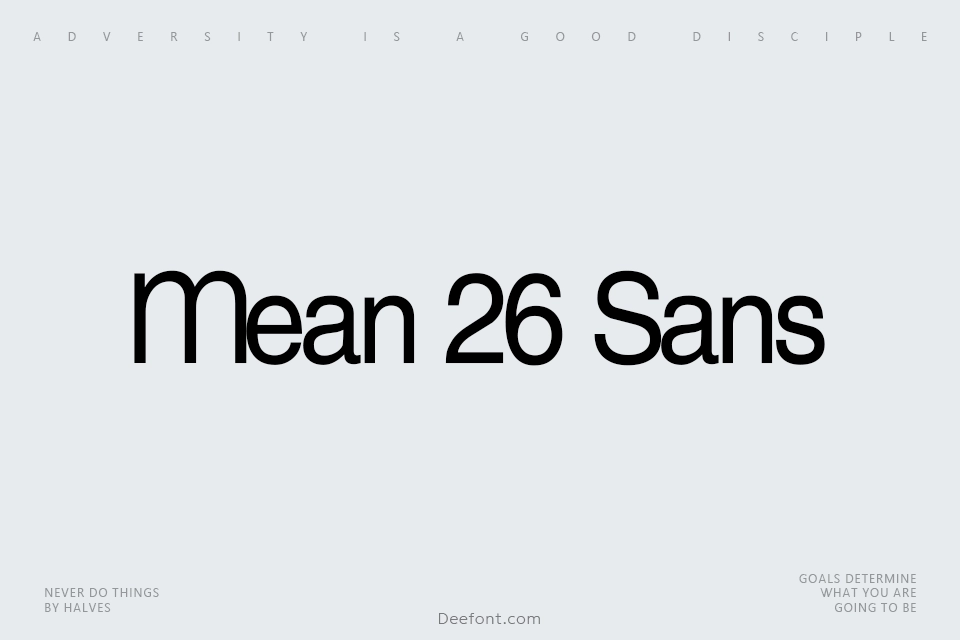
Mean 26 Sans Font
Mean 26 Sans is a sans-serif font designed by Harold’s Fonts, first released on October 3, 2006. This font features a modern and minimalist design style, 209 glyphs, and supports multiple languages ​​and special characters.Mean 26 Sansoffers clean lines and a uniform weight, making it suitable for various graphic design, web design, and typography projects, delivering a professional and legible visual experience.